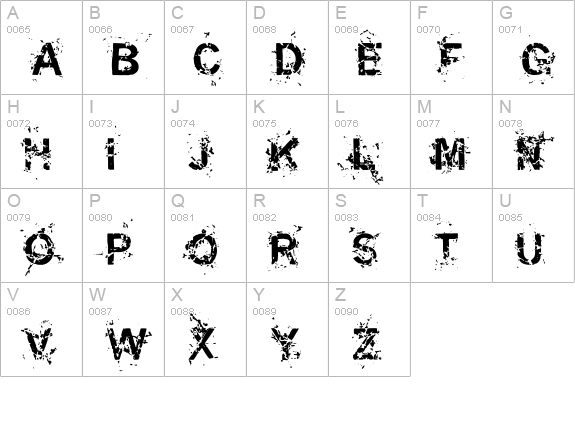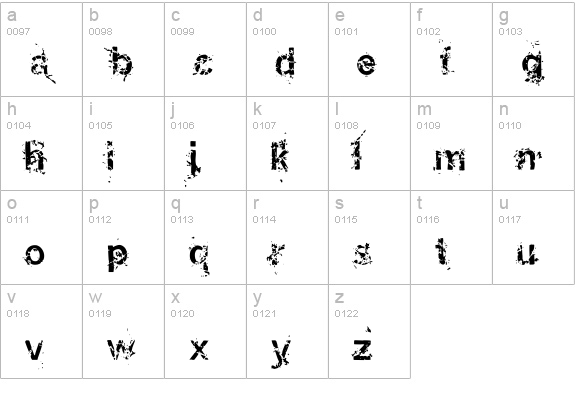
Miasm Outfection Font Details
Miasm Outfection font is a captivating and versatile typeface that exudes a sense of mystery and intrigue. With its intricate details and unique design, this font is perfect for adding a touch of sophistication to any project. The flowing curves and sharp edges of Miasm Outfection create a visually stunning effect that is sure to capture attention. What sets Miasm Outfection font apart is not only its striking appearance but also its accessibility. This font is available for free download at FontsMarket.com, making it easy for designers and enthusiasts alike to incorporate it into their work without any cost. Whether you're working on a branding project, poster design, or any other creative endeavor, Miasm Outfection font is a fantastic choice that will elevate your work to the next level.